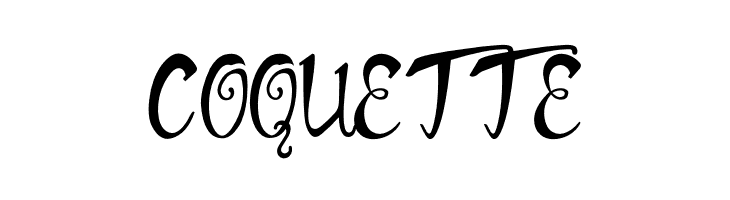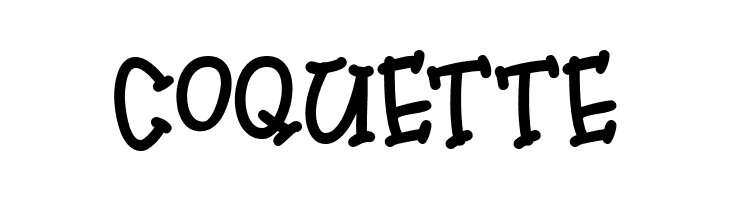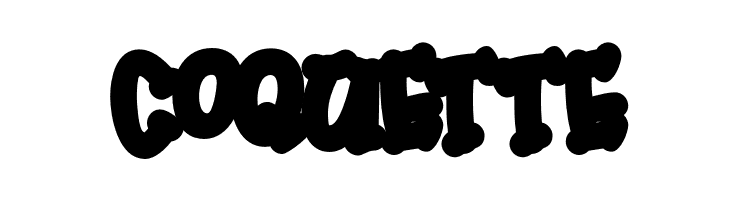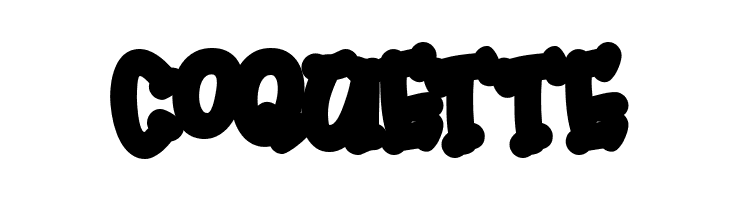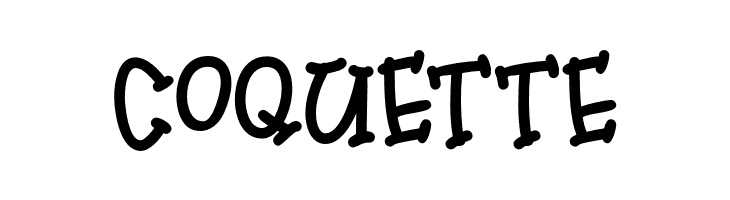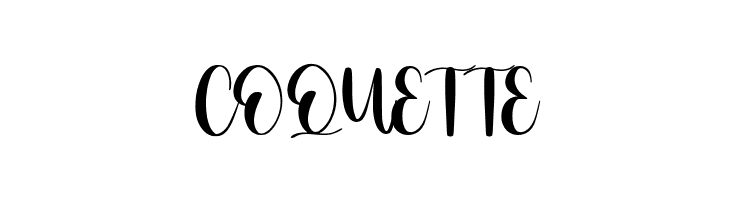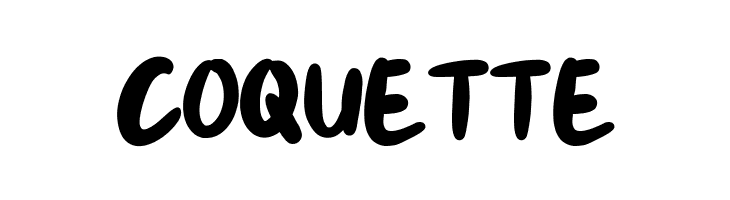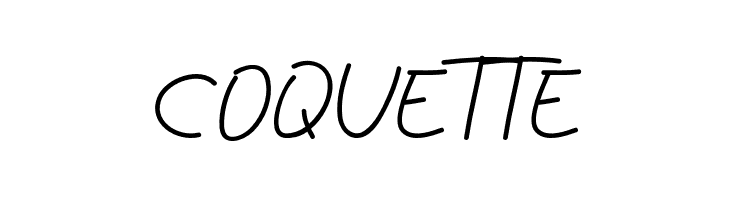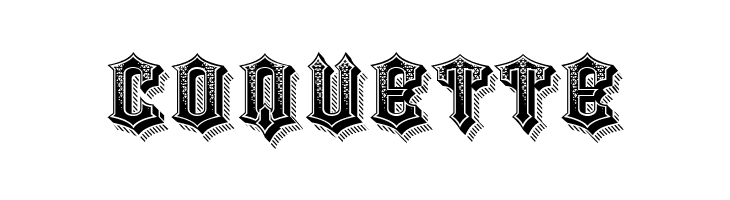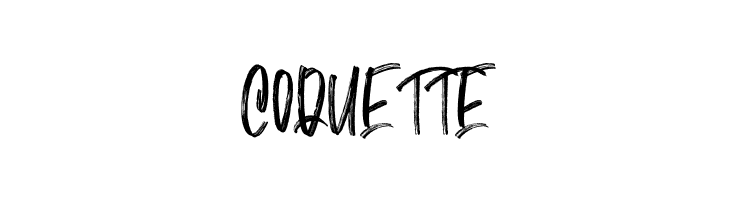
A graceful script font with flowing, connected strokes and a handwritten feel.
A modern, rounded font with a geometric structure and consistent stroke width.
A modern, geometric font with rounded edges and a clean, minimalistic style.
An intricate, decorative font with medieval-inspired patterns and bold uppercase letters.
A bold, decorative font with geometric patterns and a medieval flair.
A display font using illustrated hands making an obscene gesture for each character.
A bold, expressive script font with modern, dynamic curves.
A lively, expressive handwritten font with fluid strokes and dynamic movement.
A fluid and elegant script font with a handwritten style.
A bold, cursive font with elegant, interconnected characters and dramatic flourishes.
A bold, retro font with playful curves and a vintage flair.
A bold, expressive script font with sweeping curves and high contrast.
A dynamic, expressive handwritten font with fluid, cursive letterforms.
A playful and elegant script font with a flowing, handwritten style.
A bold, decorative font with a 3D shadow effect and geometric structure.
A dynamic and expressive script font with fluid, cursive letterforms.
A bold, playful font with rounded edges and a friendly appearance.
A bold, flowing script font with high contrast and elegant curves.
A decorative, italic font with a multi-line, three-dimensional effect.
A decorative font with multiple parallel lines forming each character, offering a bold and intricate appearance.
A bold, geometric font with striped patterns and angular shapes.
A bold, edgy font with a distressed, geometric style.
A charming and elegant script font with flowing, cursive letterforms.
A bold, flowing script font with elegant curves and a calligraphic style.
A whimsical and playful font with curly, looping strokes and decorative flair.
A whimsical, curly font with playful loops and decorative flair.
A playful, rounded typeface with smooth curves and a friendly appearance.
A playful, rounded font with a bold, bubble-like appearance.
A playful, rounded font with smooth, bold strokes and a friendly appearance.
A playful, rounded font with bold, smooth curves and a friendly appearance.
A dynamic, handwritten script font with fluid, connected strokes.
A dynamic, flowing handwritten font with elegant, cursive strokes.
A playful and whimsical font with script and decorative elements.
An elegant script font with flowing lines and high contrast, ideal for formal uses.
A delicate and flowing script font with elegant, continuous strokes.